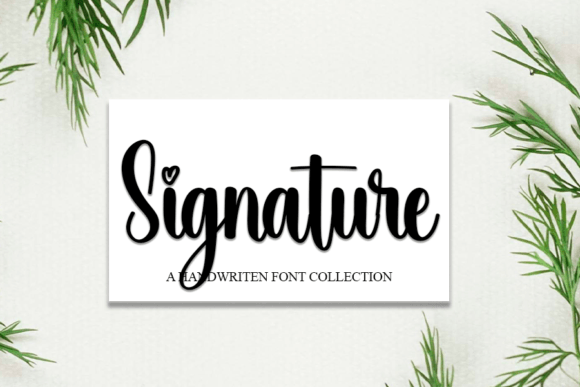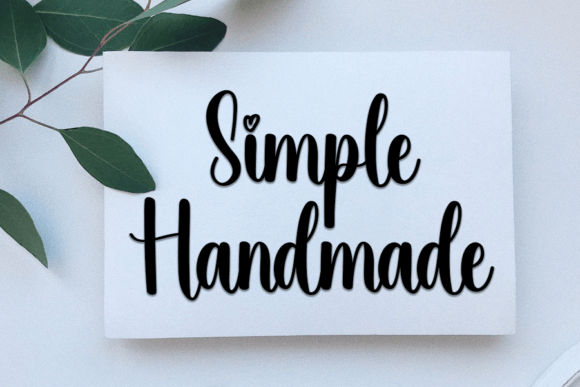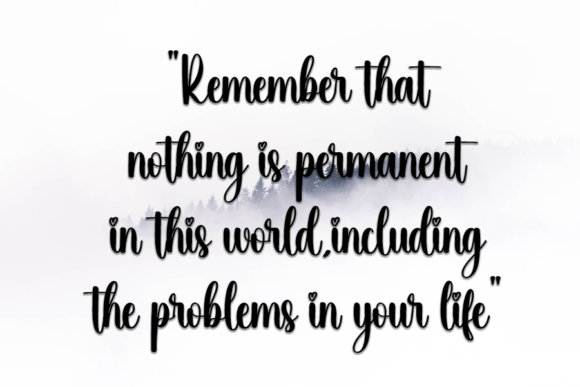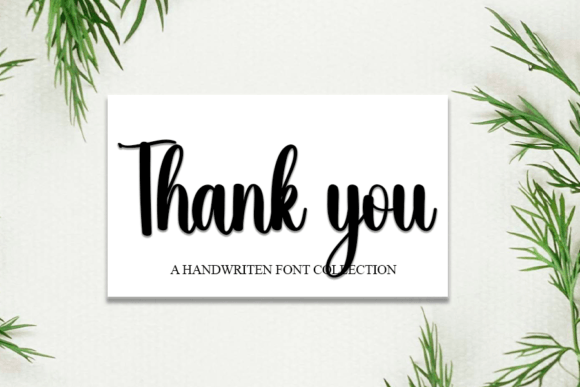
The Birth of a Unique Design: Discover the Aquarius Font
Have you ever found yourself sitting in front of a blank sheet of paper, pen in hand, and suddenly, an idea strikes? The words flow effortlessly, and your creative vision begins to take shape. This is what happened when the Aquarius Font was born – a delicate handwritten font designed to add a touch of coolness and uniqueness to any design project. Whether you’re crafting a letter, designing an invitation, or labeling a food product, the Aquarius Font is the perfect companion for your creative endeavors.
As a designer, you’re always on the lookout for fonts that can elevate your work and make it stand out from the crowd. The Aquarius Font is a valuable addition to any design arsenal, offering a fresh and distinctive look that’s sure to capture attention. With its versatility and charm, the Aquarius Font is a must-have for anyone looking to add a personal touch to their designs.
- Modern and elegant design with a unique twist
- Supports a wide range of languages, including Latin, Cyrillic, and Greek
- Includes a comprehensive set of glyphs, including symbols and icons
- Font Style: Available in Regular, Italic, Bold, and Bold Italic styles
Aquarius Font Review
As a designer, I had the opportunity to work with the Aquarius font, and I must say, it’s a unique and intriguing typeface. ✨ One of the things that stood out to me was its quirky, hand-drawn feel, which adds a touch of personality to any design project. The font’s eclectic style is perfect for creative agencies, art schools, or anyone looking to add a bit of whimsy to their branding.
- Unique, hand-drawn feel that adds personality to designs
- Perfect for creative agencies, art schools, or brands looking for a quirky aesthetic
- Comes in a variety of weights and styles to suit different design needs
However, there are some limitations to consider. ⚠️ The font’s irregularities can make it challenging to read at smaller sizes or in certain contexts. Additionally, the font’s quirky feel may not be suitable for more conservative or traditional brands. In some cases, the font may also feel overwhelming or busy, so it’s essential to use it thoughtfully and in moderation.
Overall, I would give the Aquarius font 3.5 out of 5 stars. While it’s a unique and captivating typeface, its limitations and potential drawbacks prevent it from being a go-to choice for every design project. With careful consideration and thoughtful application, however, the Aquarius font can be a valuable addition to any designer’s toolkit.
The Aquarius Font is perfect for creative projects, such as:
- Artistic prints and posters
For optimal results, pair the Aquarius Font with bold, eye-catching graphics and colors to create a unique and memorable visual identity.